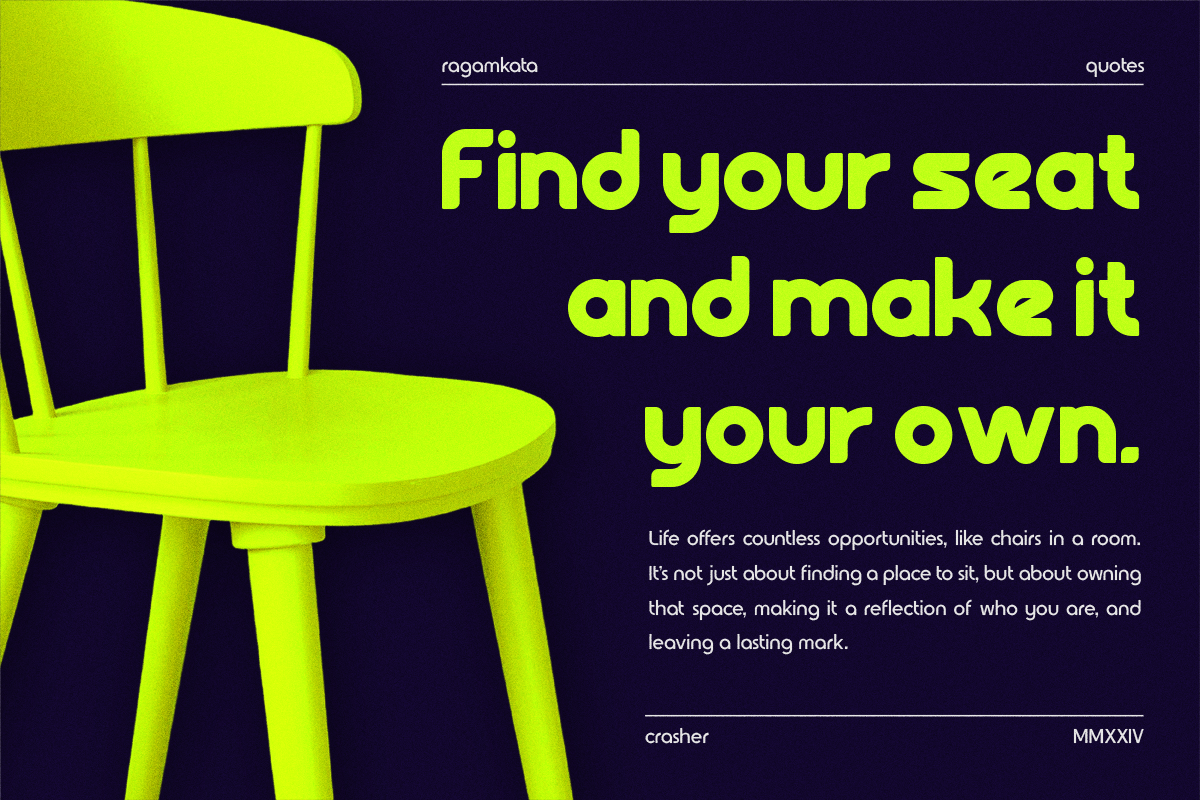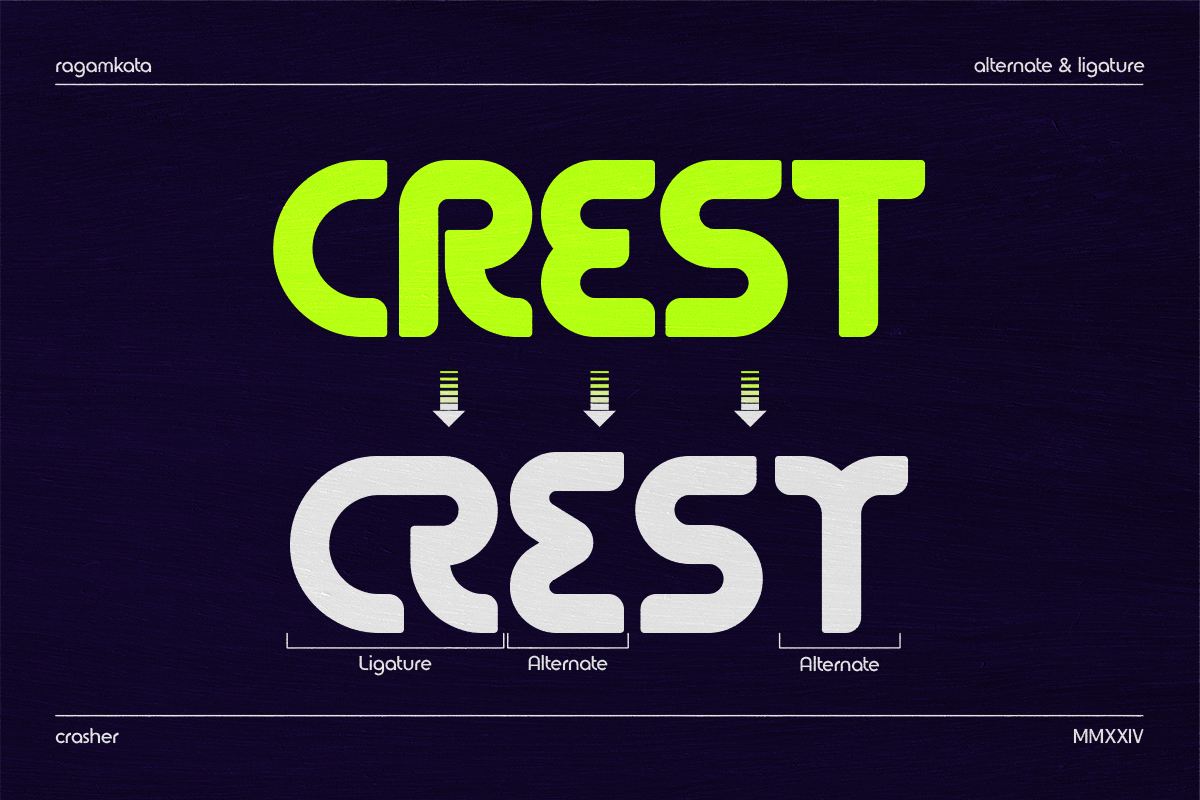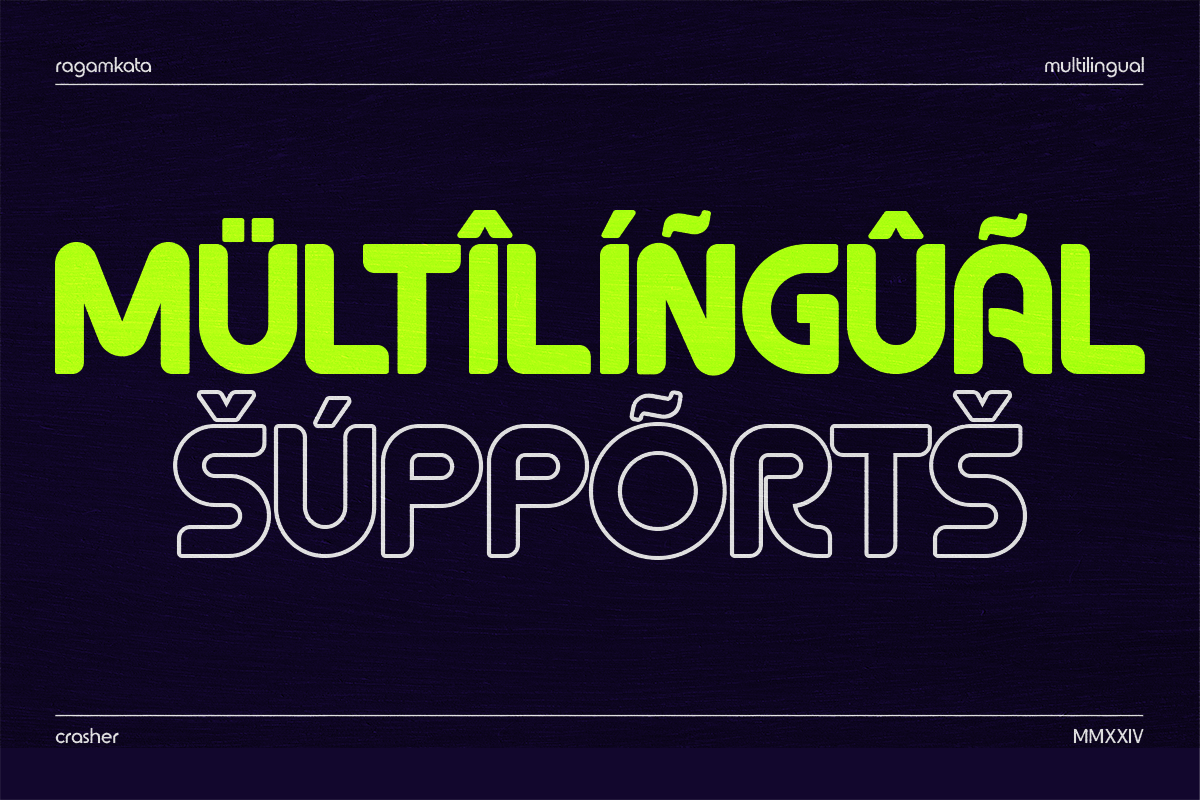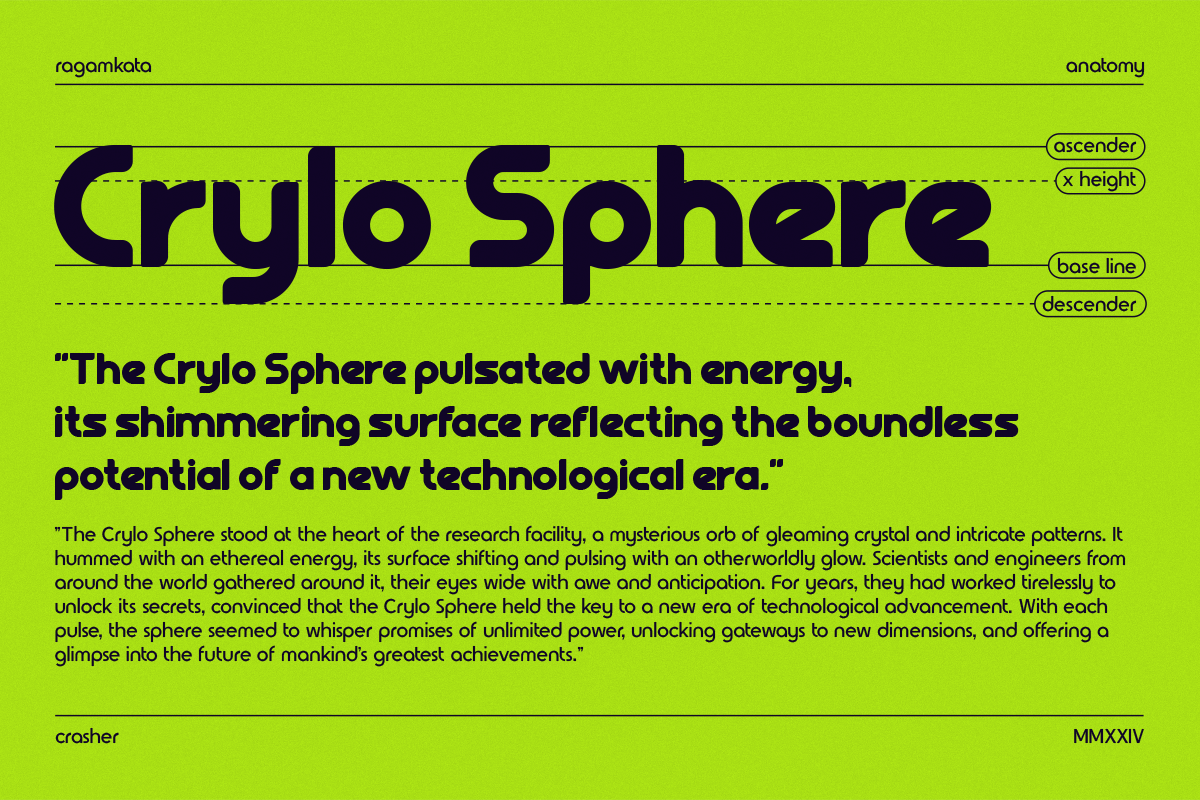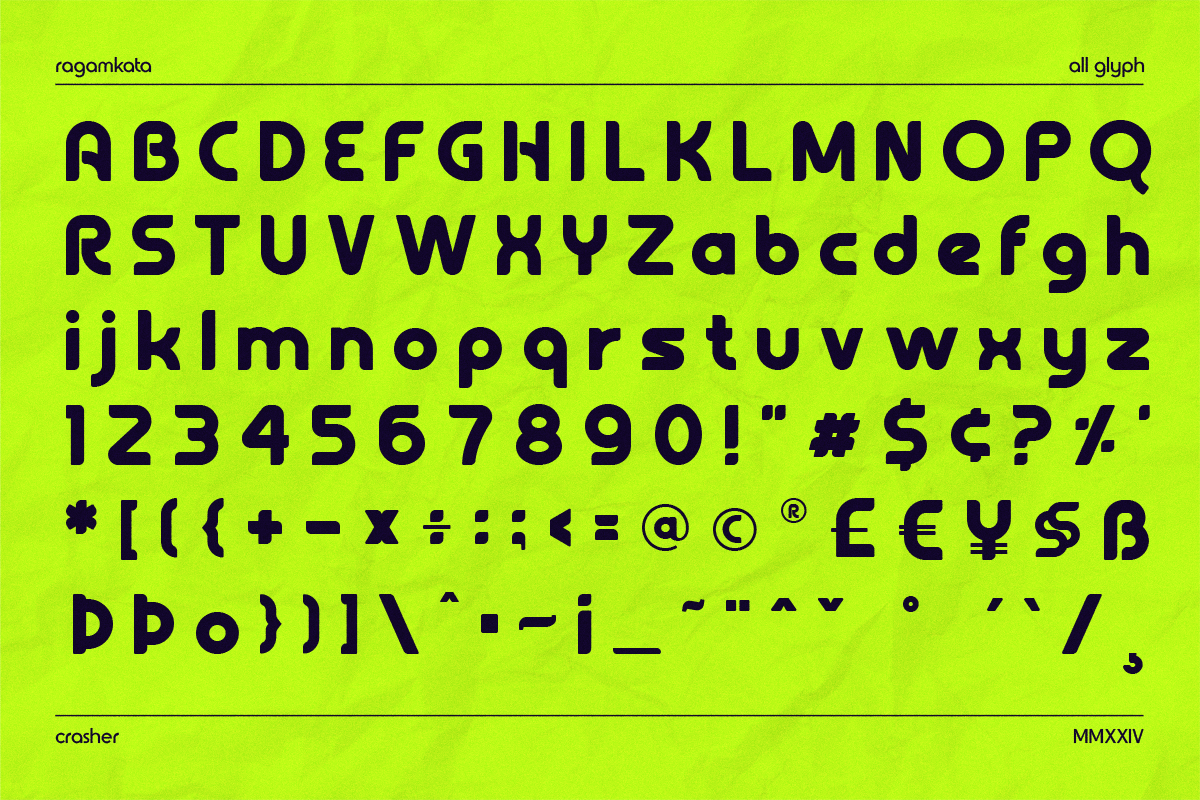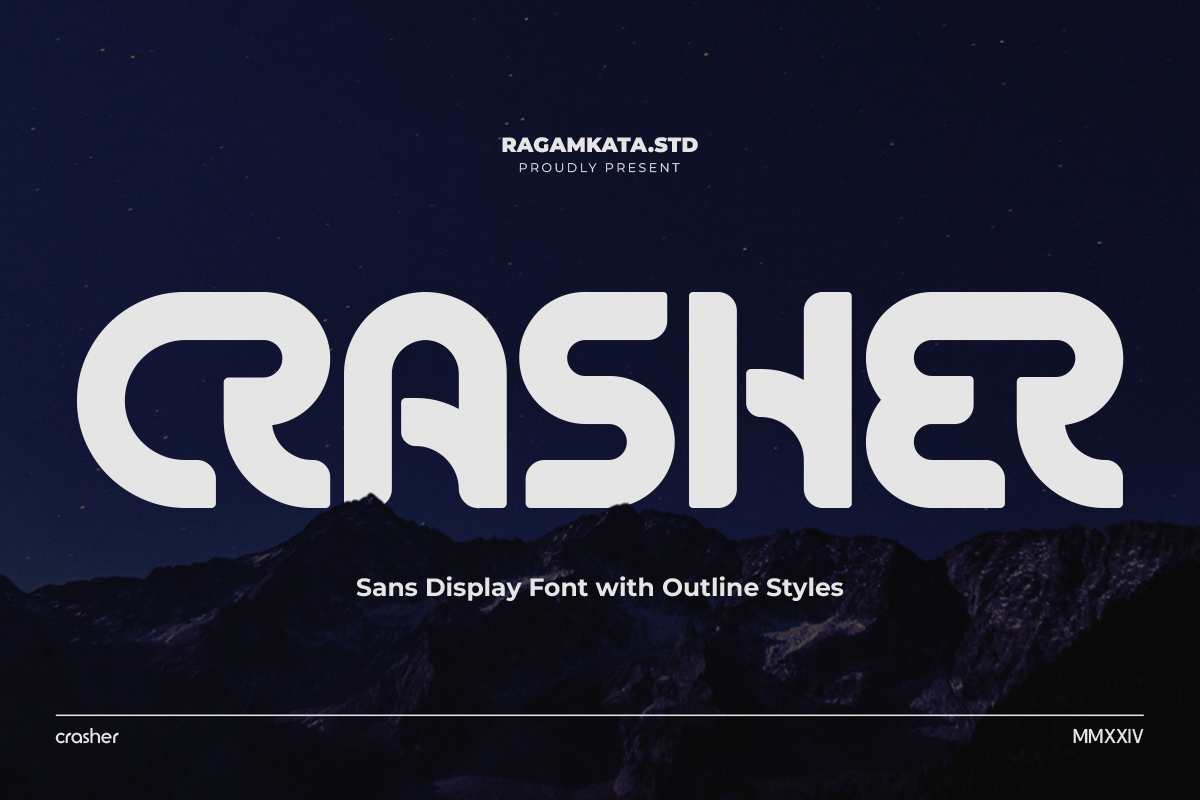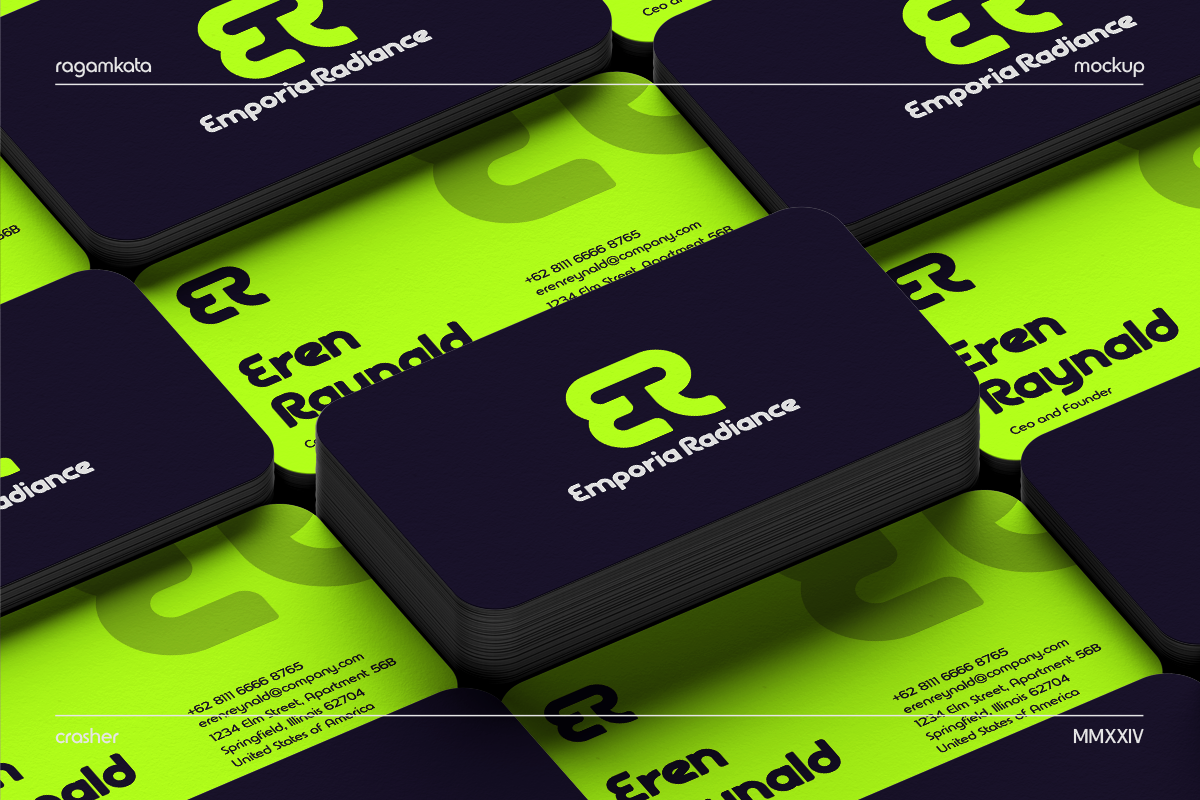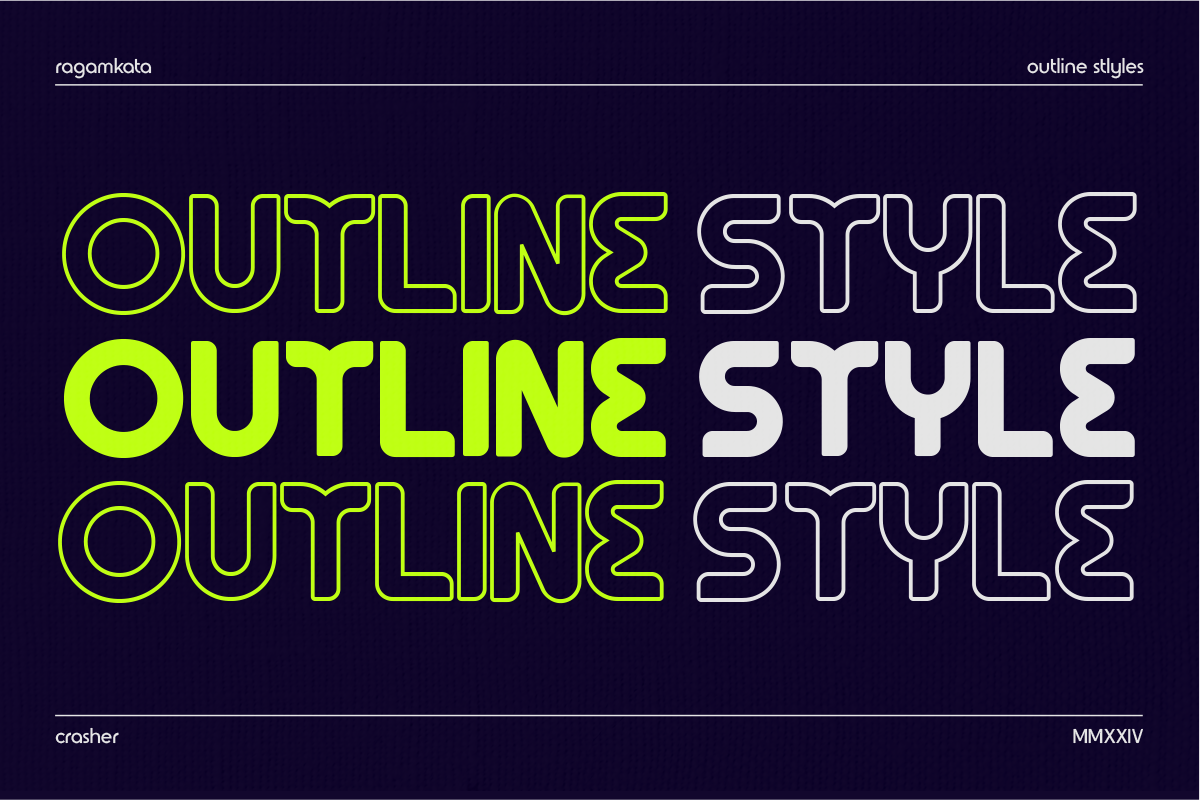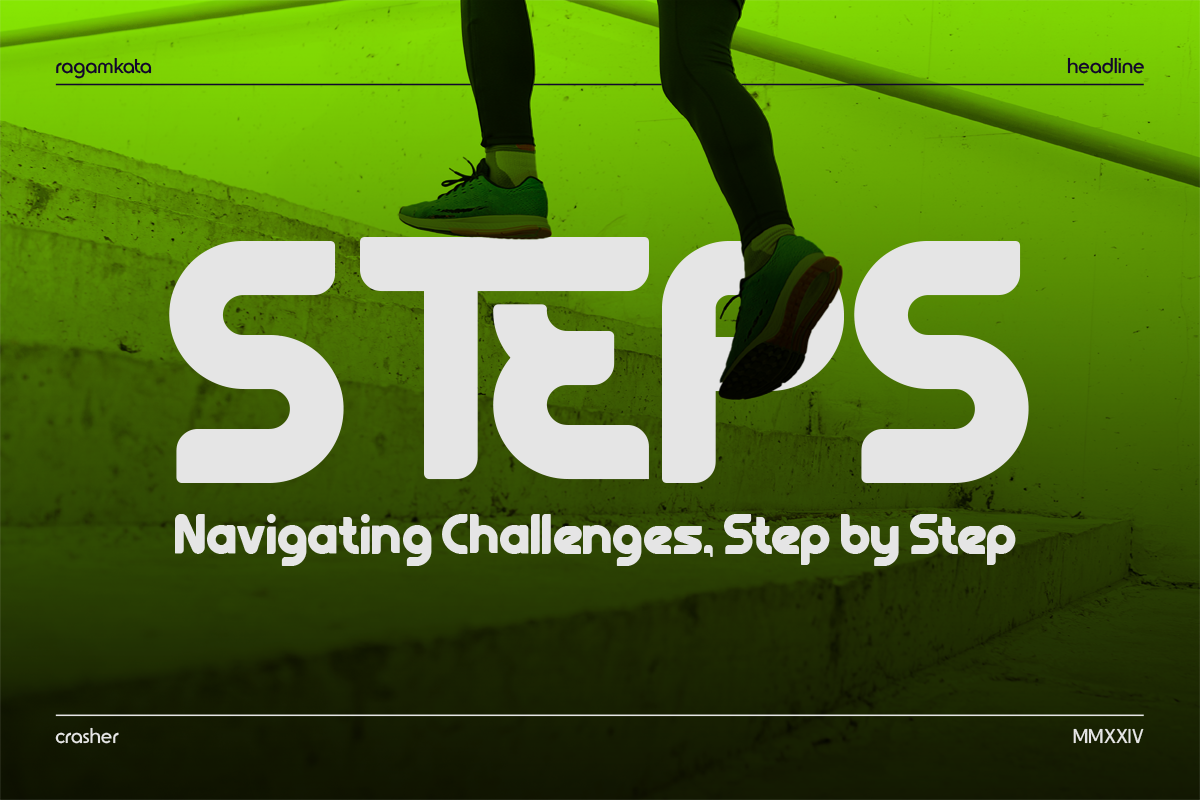
Crasher - Sans Display Font
Crasher is a Sans display typeface with brings science fiction style, perfect for logos, branding, headers, and titling. With ligatures and precise kerning and spacing tailored for impactful logos and branding materials, Crasher Font ensures your designs make a lasting impression.
- Multilingual Available